What Font Is Used On College Degrees
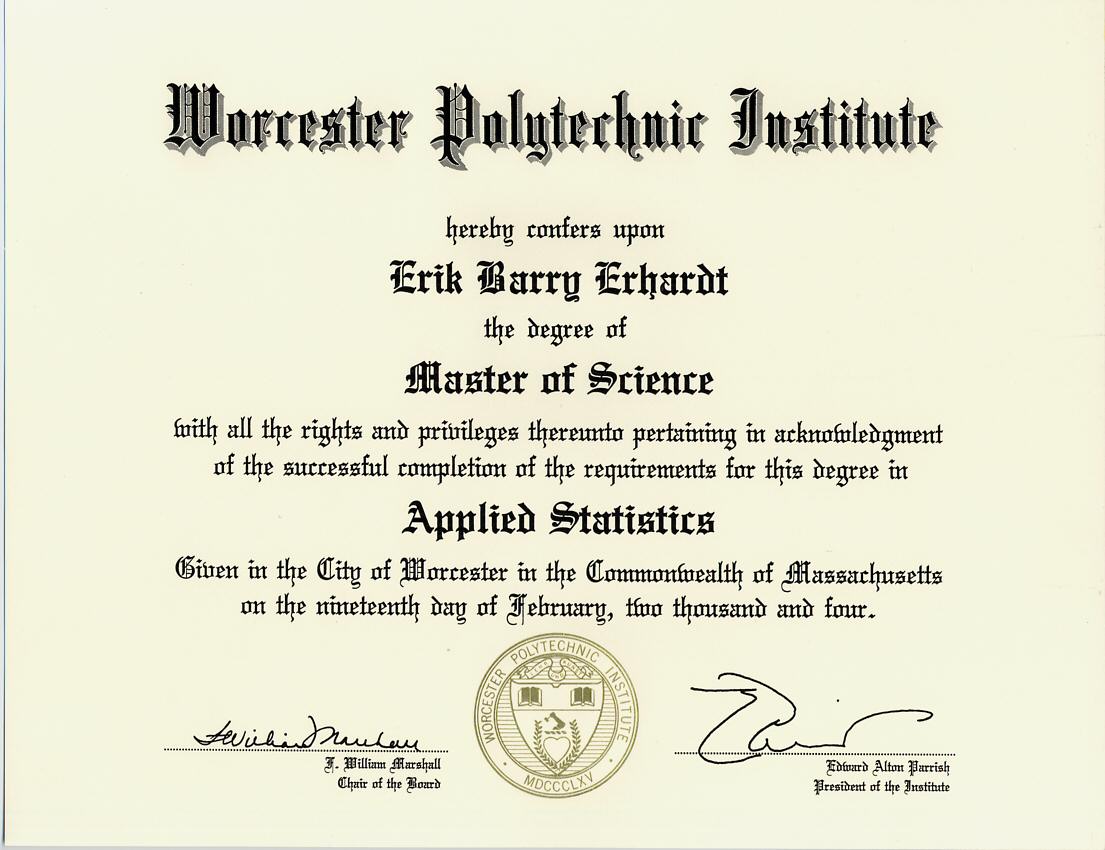
Where neither of these fonts are available, the designated fallback fonts are arial and georgia respectively. Does anyone know what type of font is used on diplomas? Our primary typefaces are kievit (sans serif) and lyon (serif).
Any Of The Cool Typefaces And Font Designs Will Be An Excellent Choice For That Authentic University Or Collegiate Look And Feel.
Since Typography Is Largely Responsible For The General Character Or Appearance Of Printed Material, Its Coordinated And Consistent Use Is Essential To Establish And Maintain A Graphic “Look” For All Of The University’s Internal And External Visual Communications.